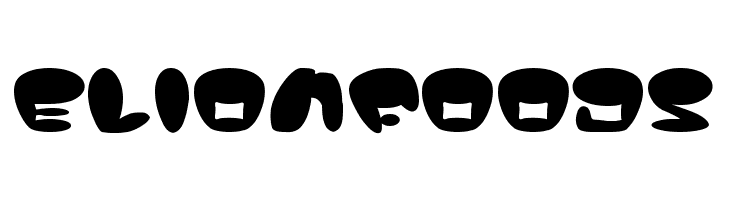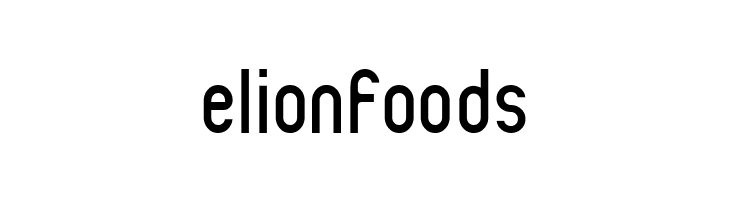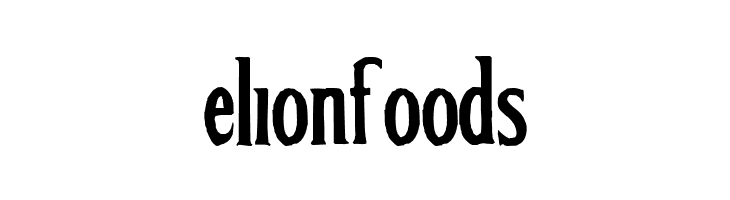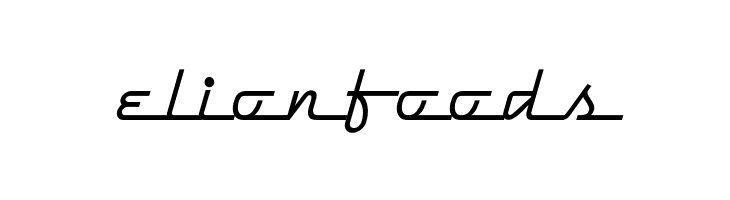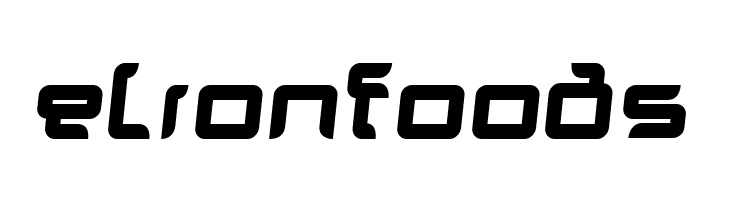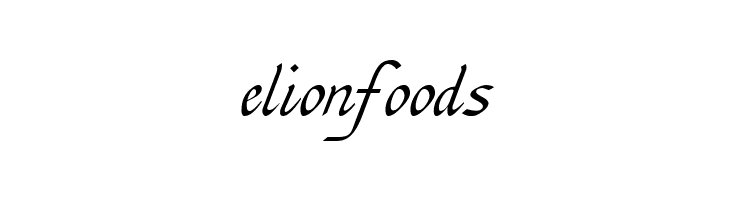
A bold, playful font with a hand-drawn comic book style.
A bold, playful font with thick, rounded characters and a whimsical style.
A sophisticated script font with flowing, elegant curves and a modern classic appeal.
A modern, thin font with elongated characters and a sleek design.
( Paul Lloyd Fonts )
A classic yet modern font with elegant, bold uppercase and harmonious lowercase letters.
A flowing script font with elegant, connected letters and a dynamic slant.
( Fonts by www.matchfonts.com - Michel Bujardet )
An elegant, flowing script font with a modern twist and medium contrast.